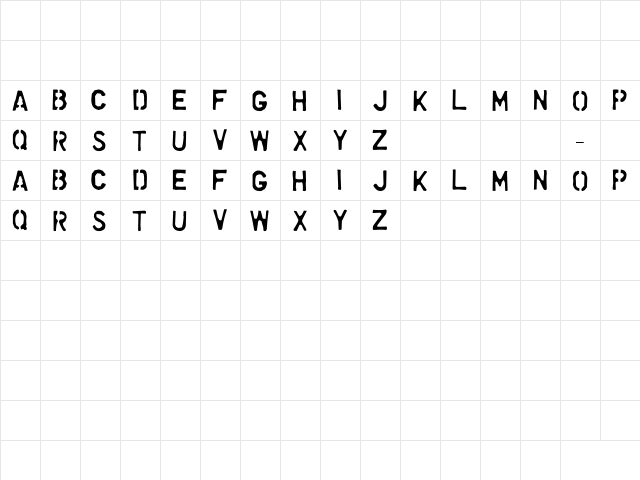
Dollar Store Stencil Regular
Design Context for Dollar Store Stencil Typeface
Dollar Store Stencil has the rough pragmatism of spray-painted stencil signage, adding a raw, street-level authenticity to designs.
A strong choice for packaging that needs edge, warehouse aesthetics, and rough-and-ready visual identities.
Pro Tip: Use Dollar Store Stencil at large sizes on packaging, posters, or apparel where the stencil cutaways read clearly. Avoid small sizes where those gaps become visual noise.